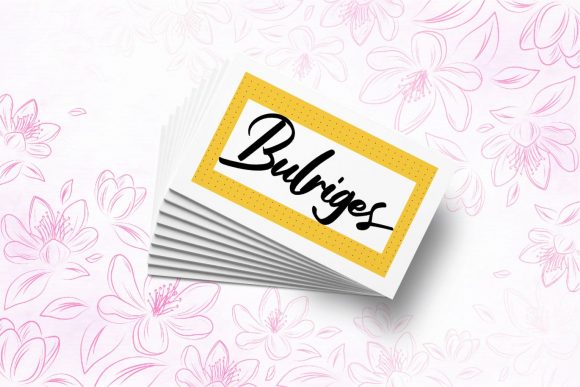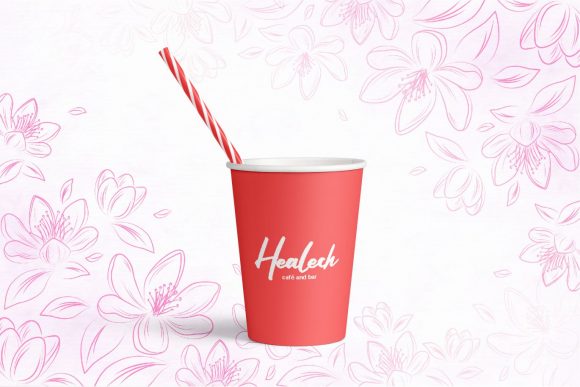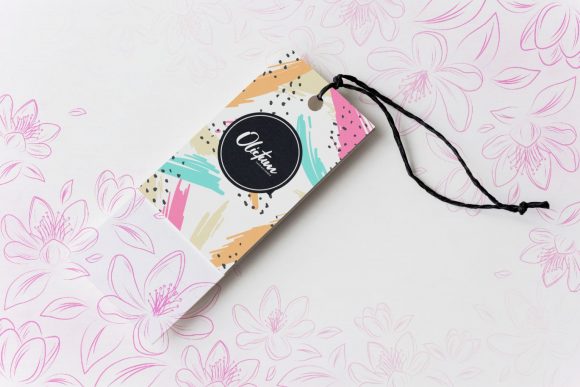
About Chrisela Font
Chrisela is an unique handwritten font. Whether you’re using it for crafting, digital designing, presentations, or greeting card making, it’s perfect!